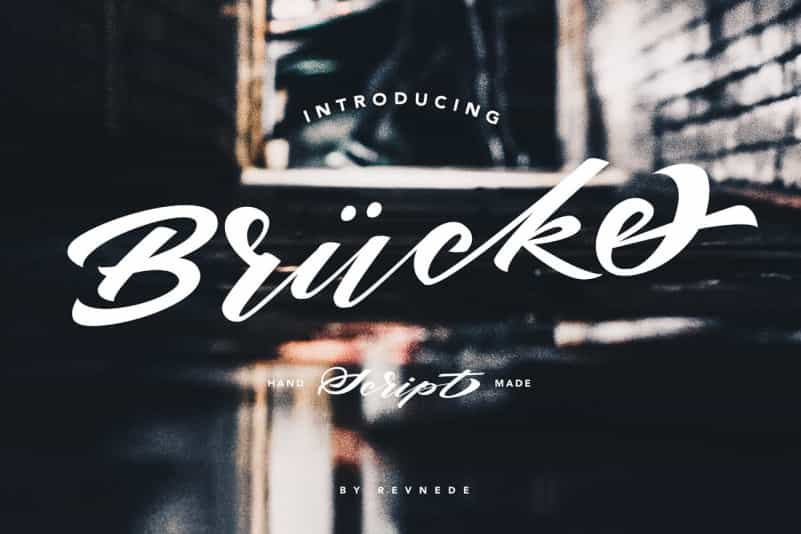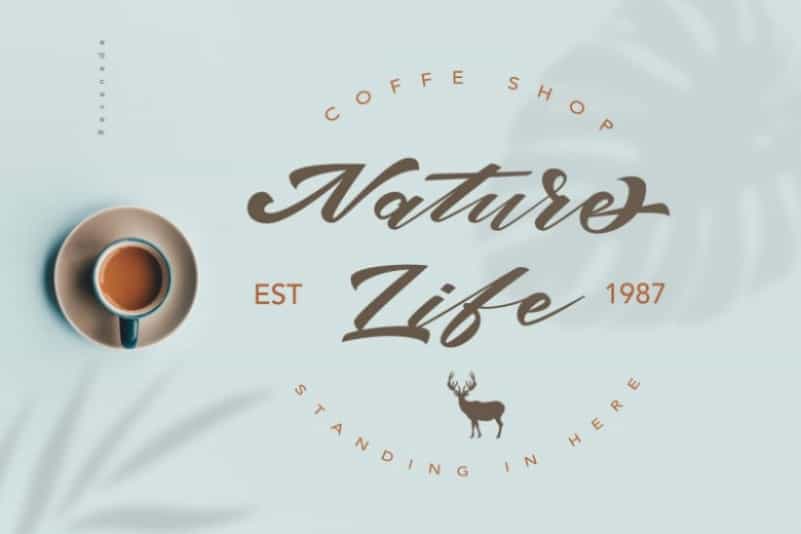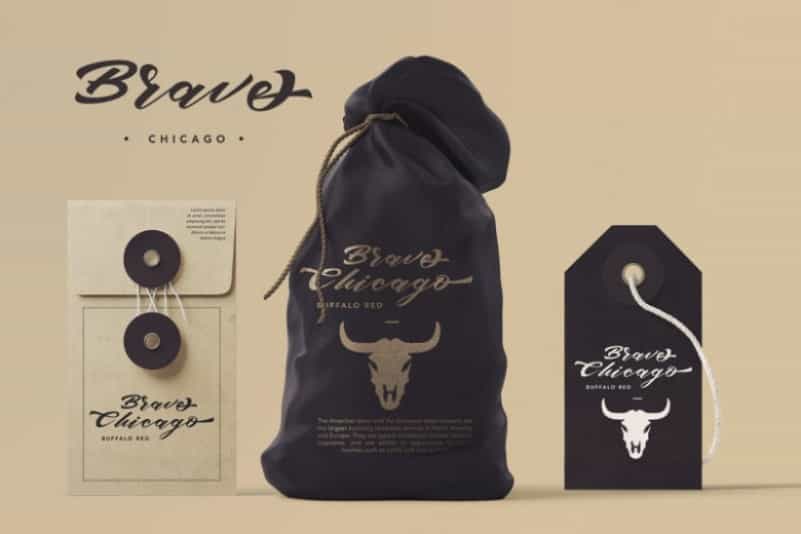
Introducing Bruke Font. It is created and uploaded by Revnede. It is a font that has a style and a great taste that is cool. It is in some way related to music, sci-fi, modern design and etc. enhance your design and font for both web and print; websites and posters, menus and logotypes, cards and signage, packaging.